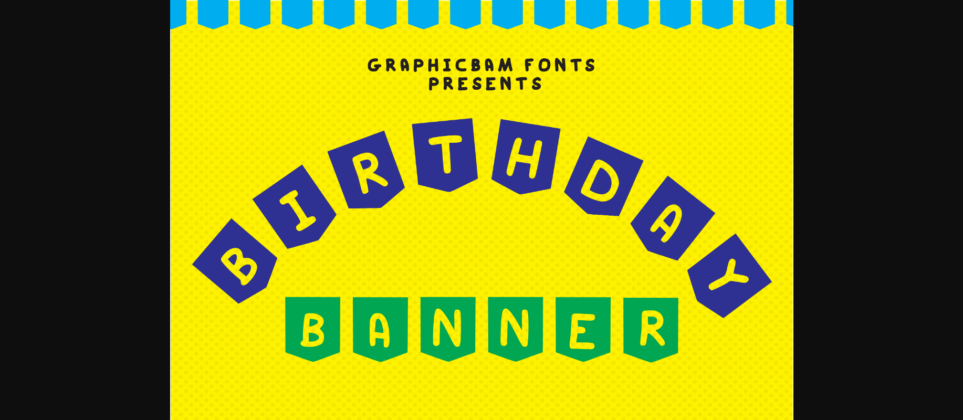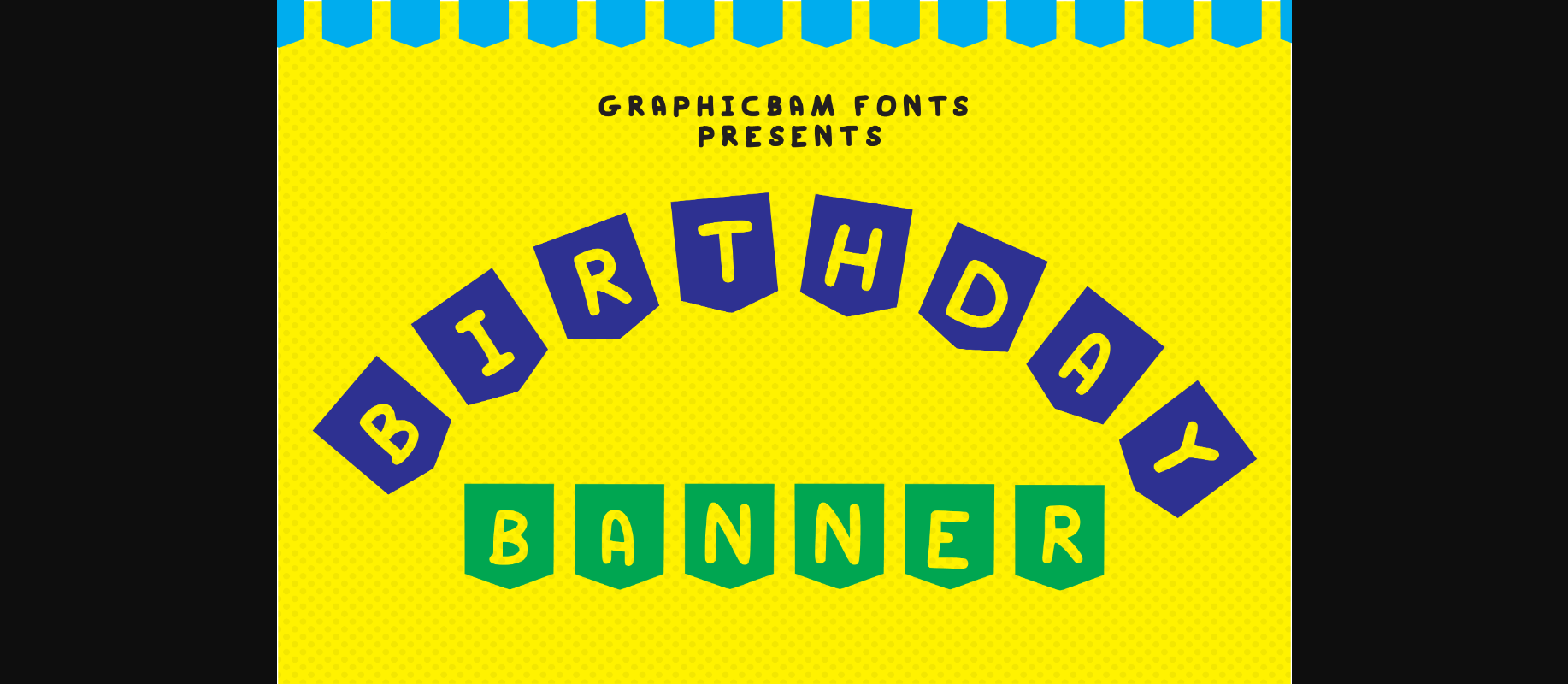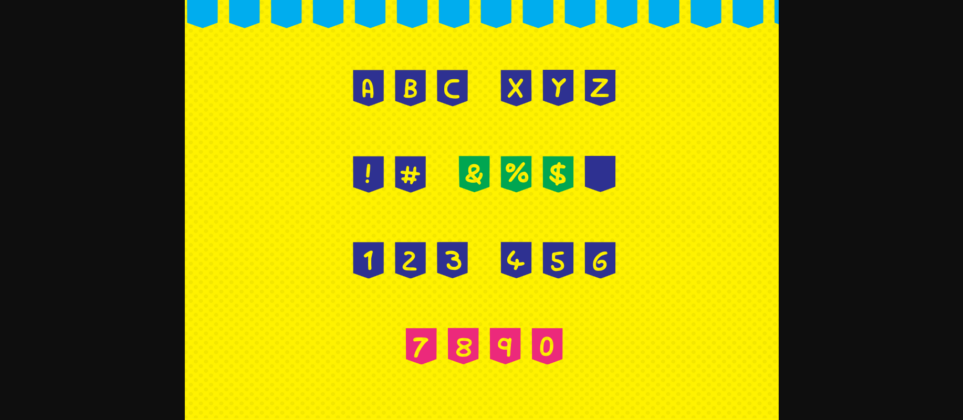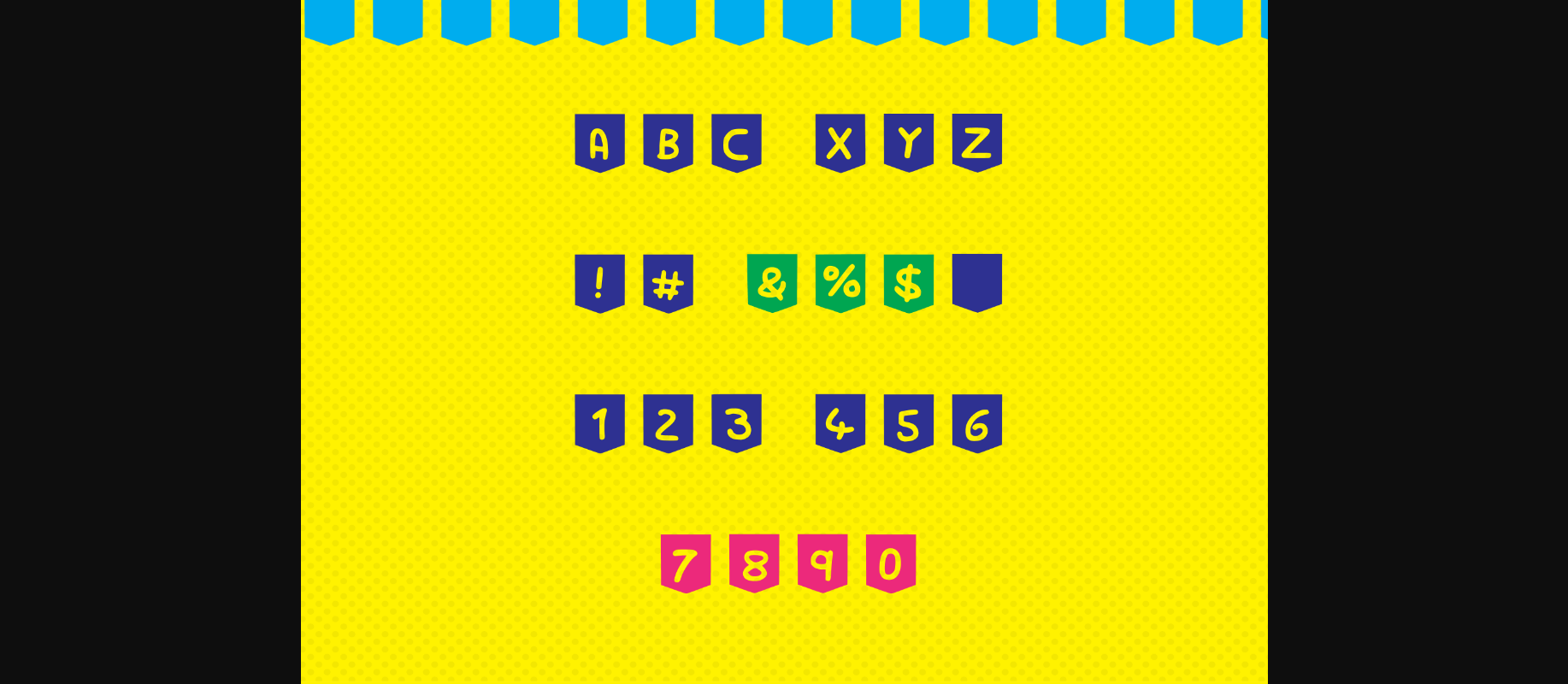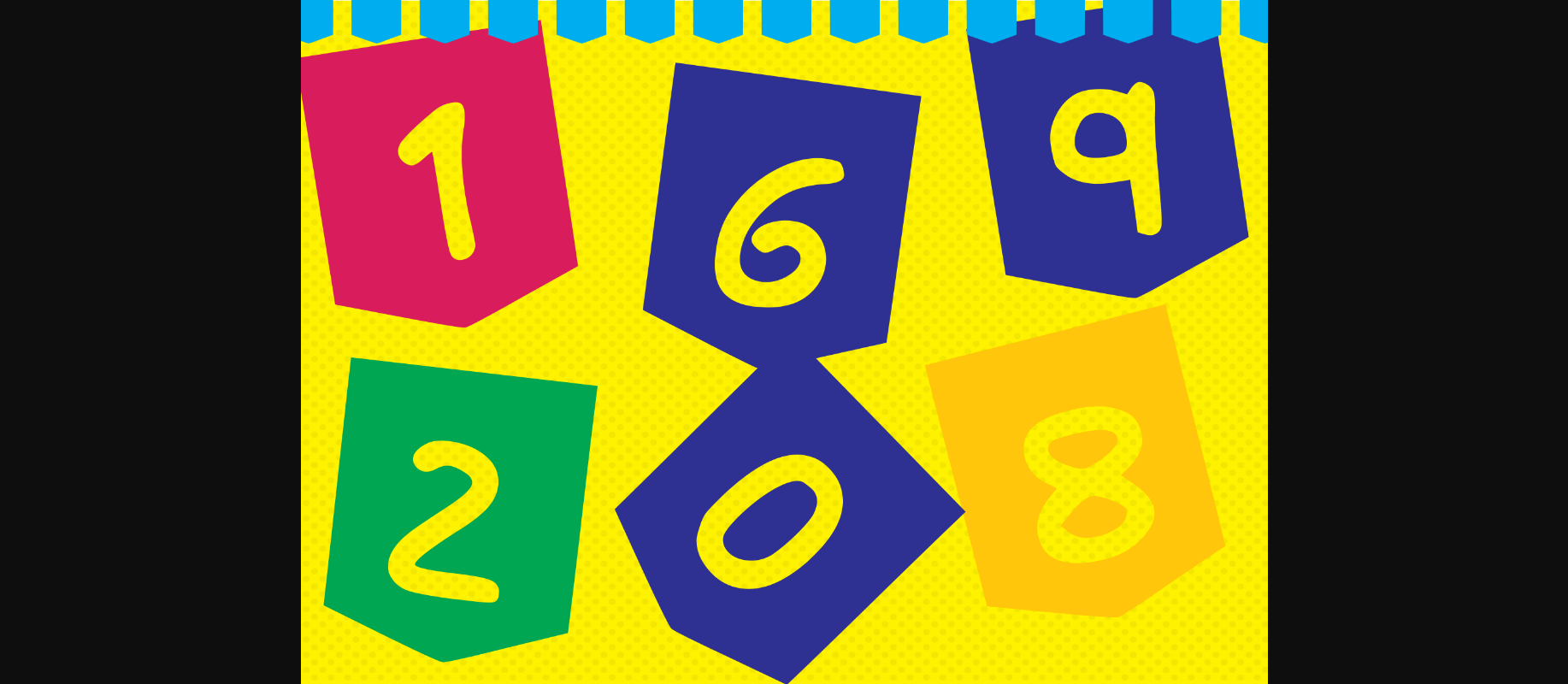
Birthday Banner Font
About Birthday Banner Font
Birthday Banner is a cute decorative font with a festive theme. Whether you use it for cartoon related designs, children games or just any creation that requires a lovely touch, this font will be an amazing choice.